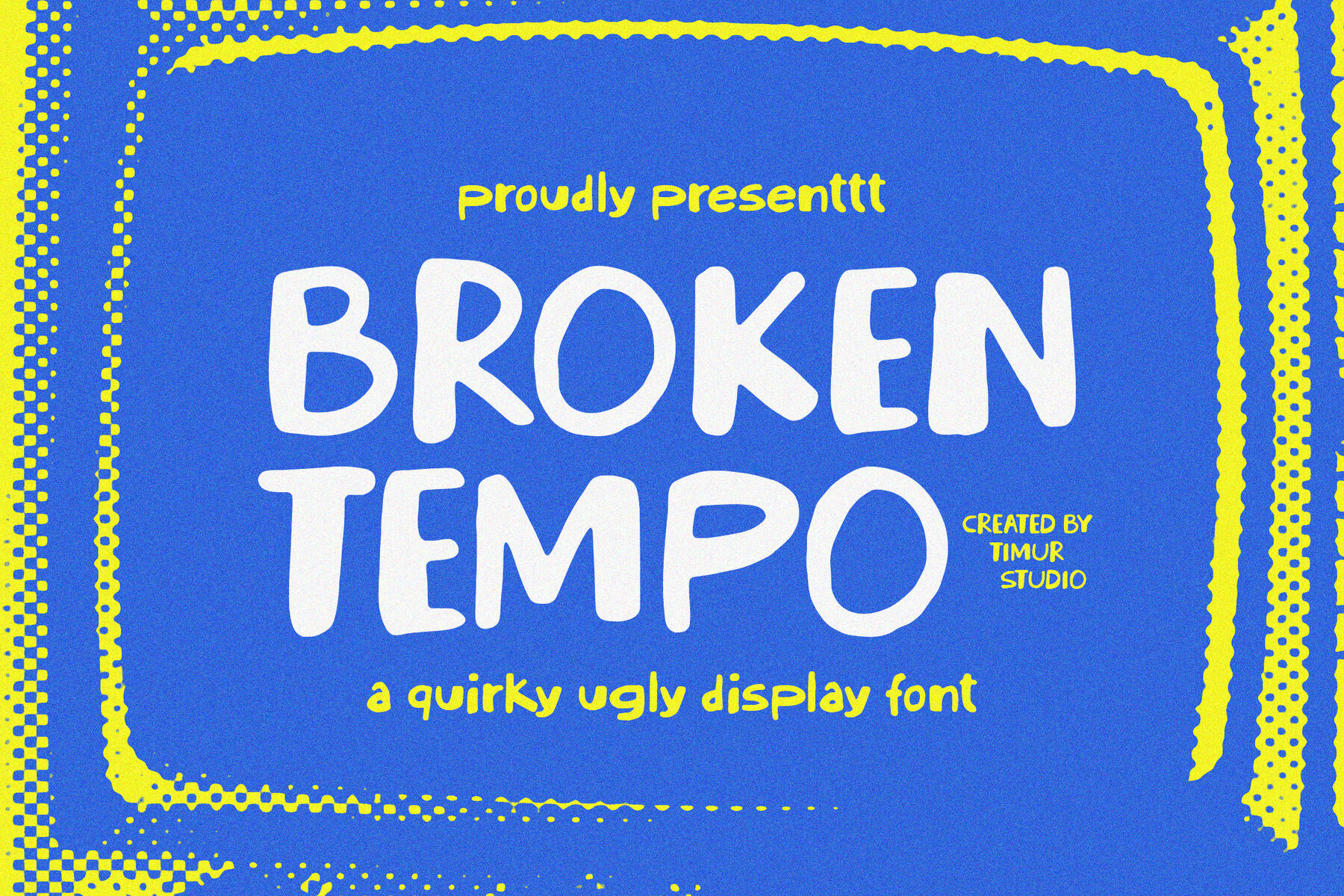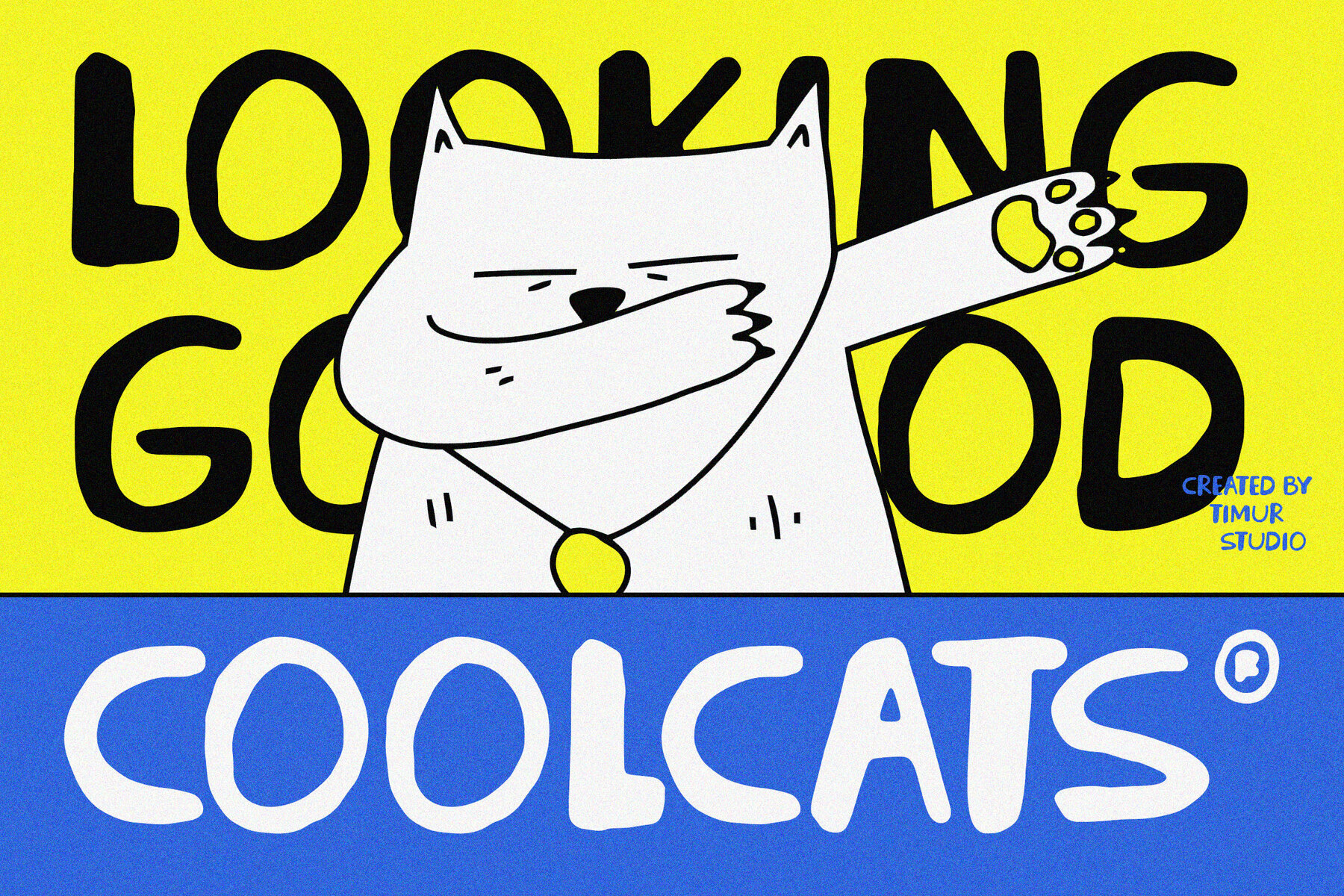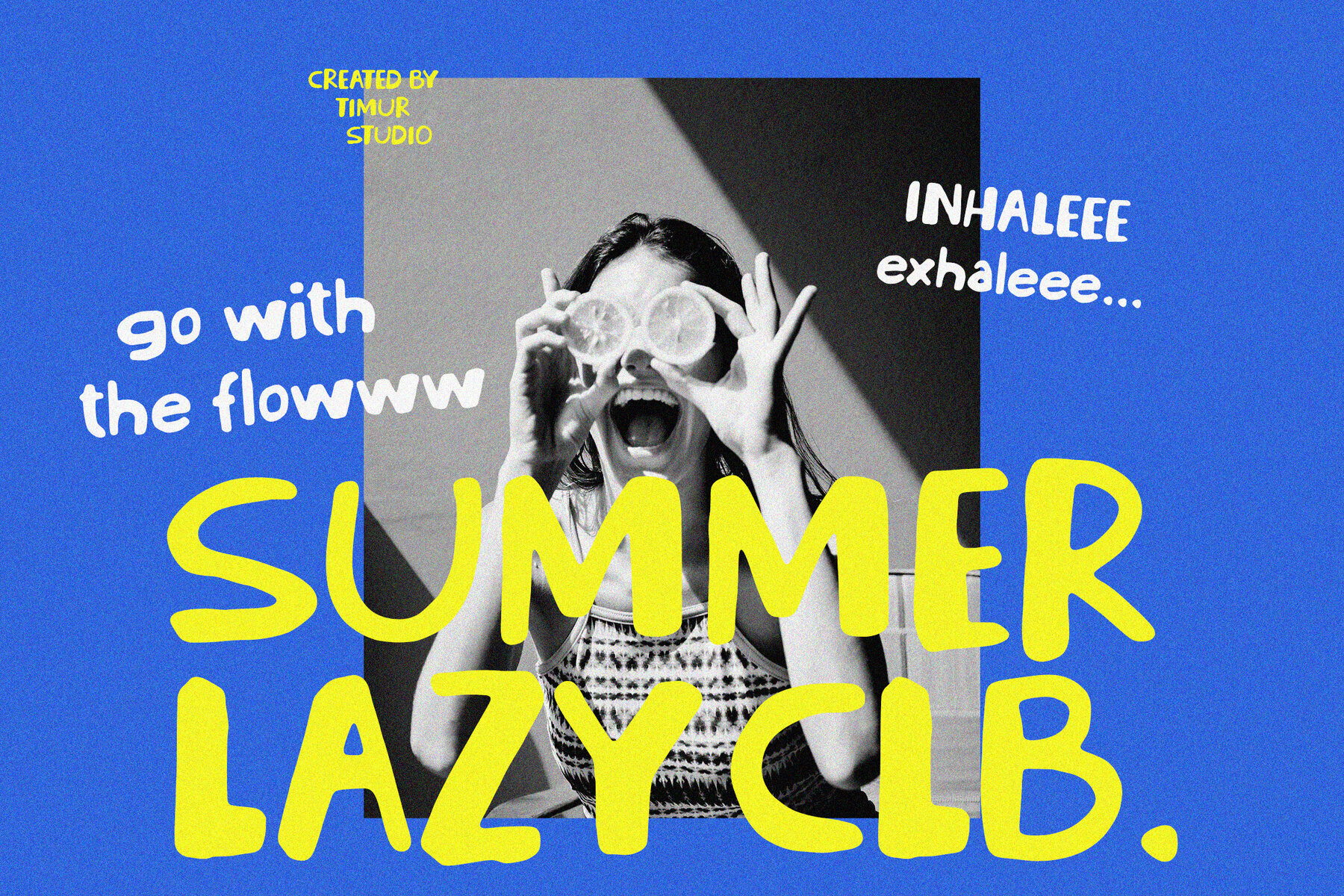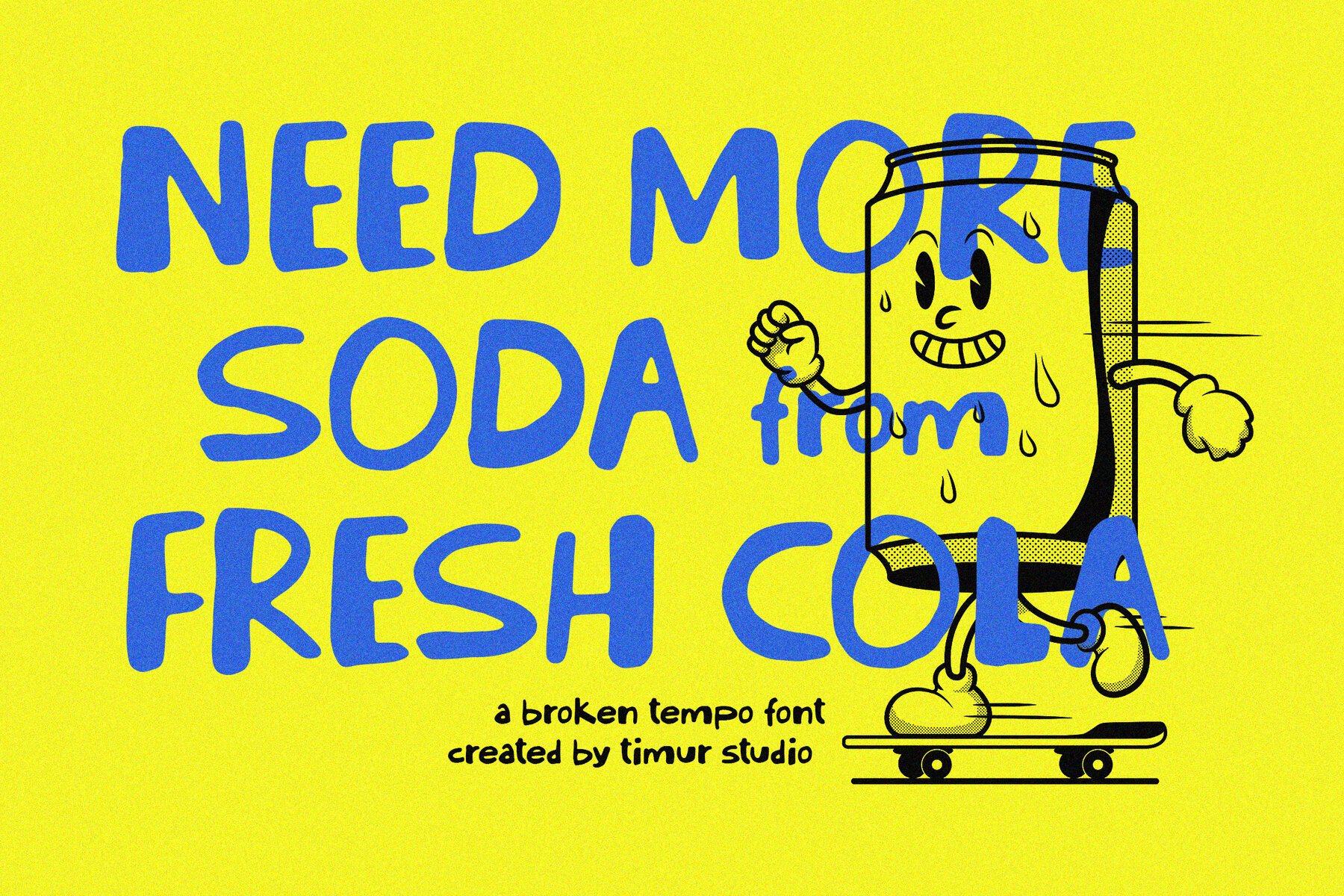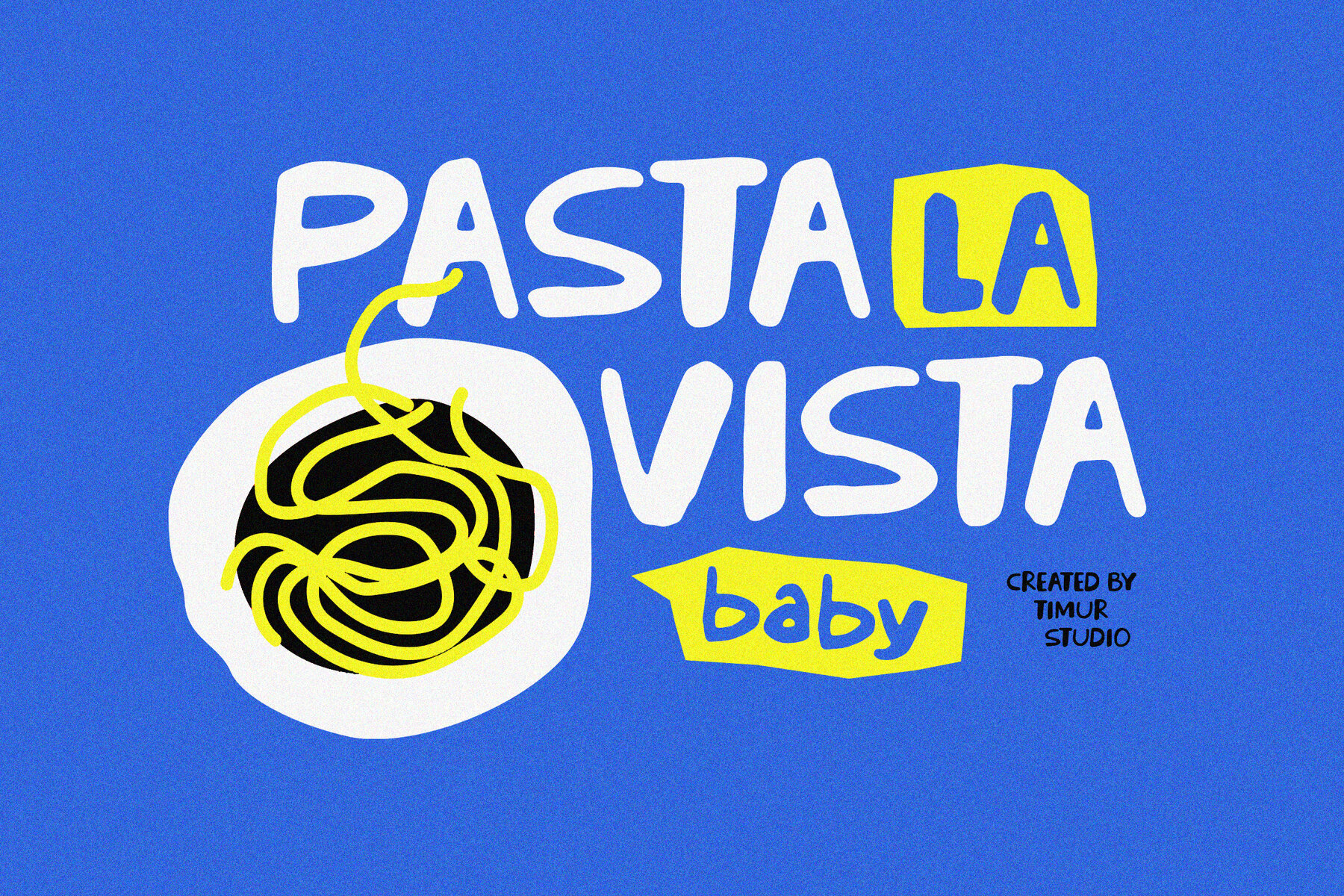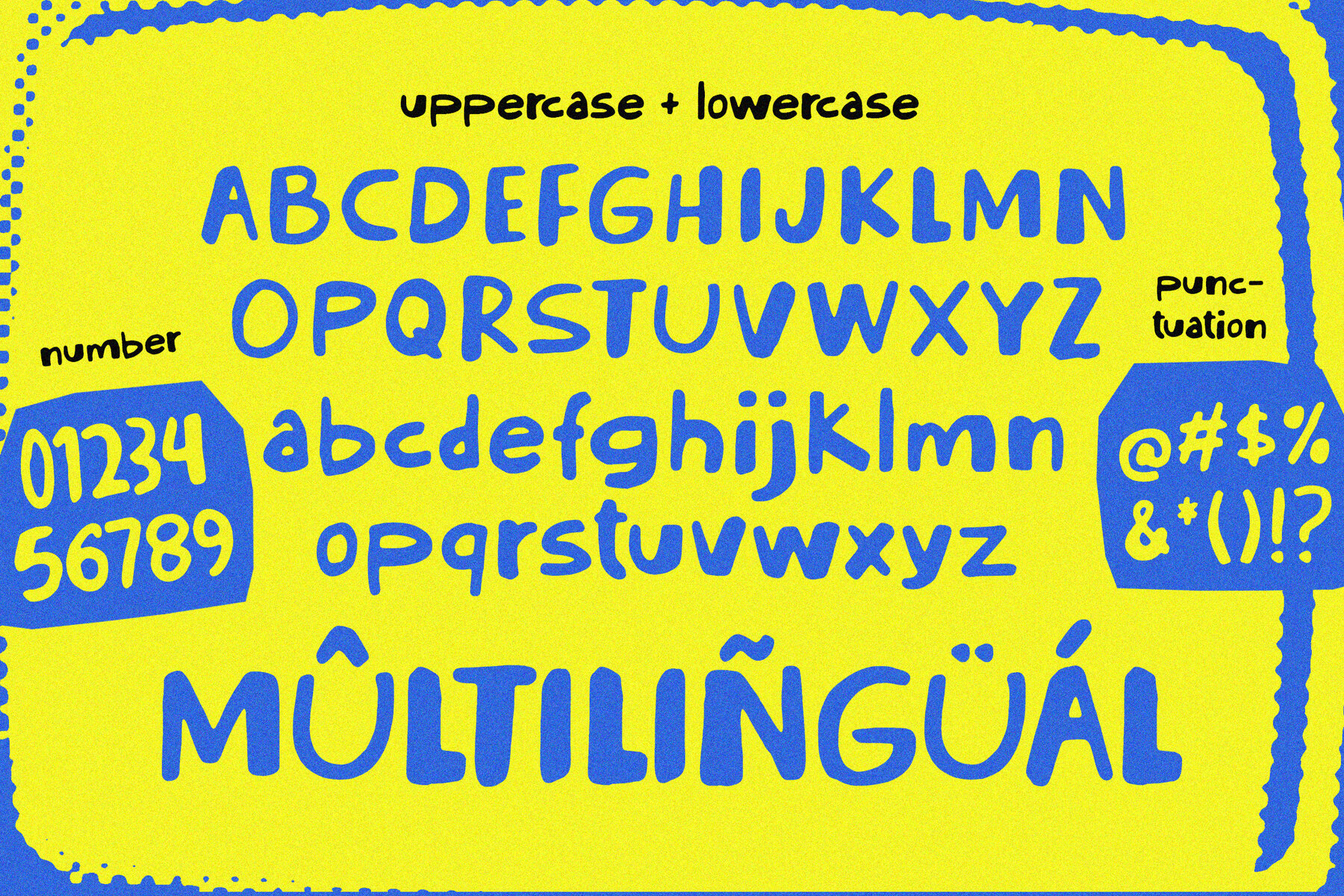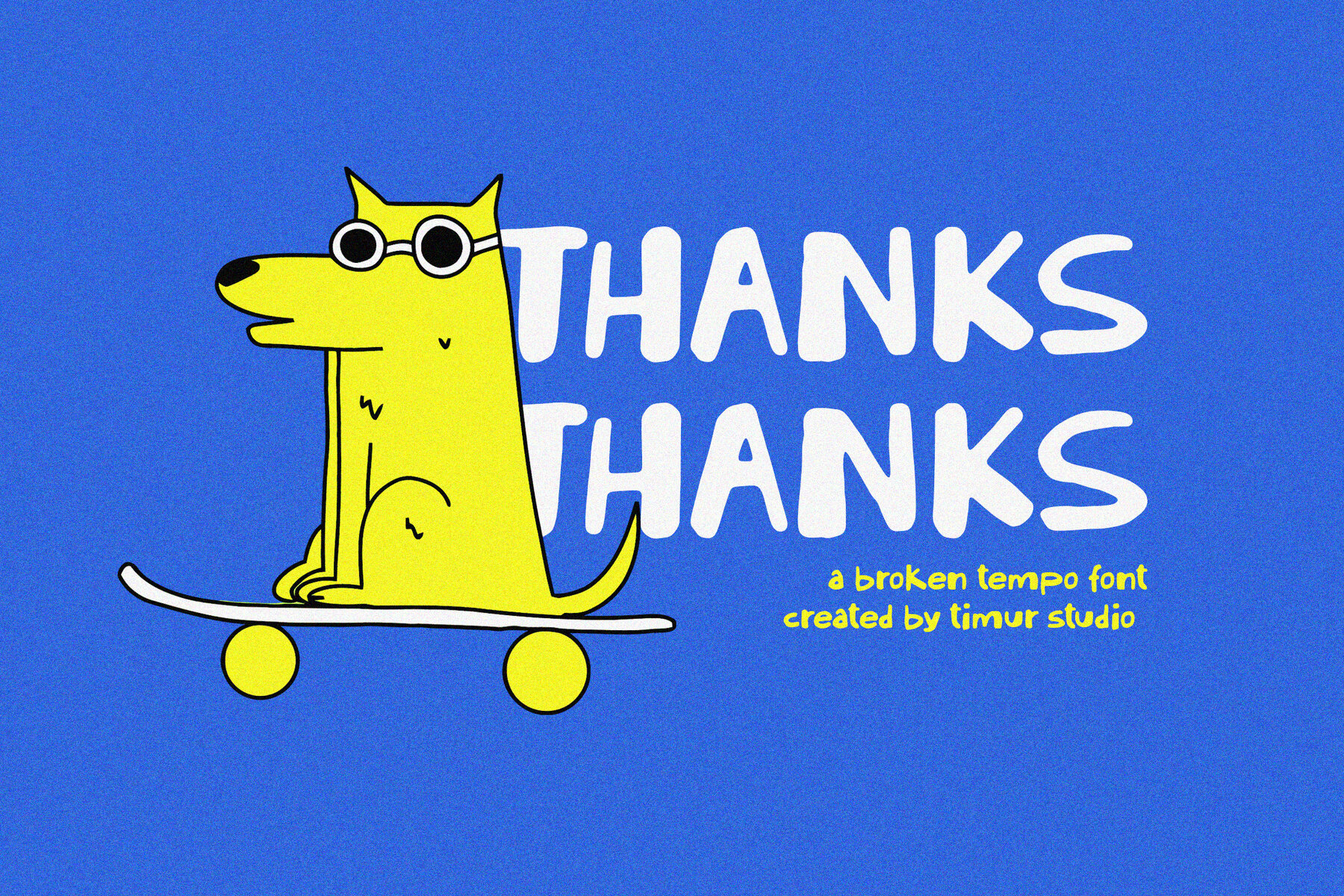
Broken Tempo
Discover the offbeat rhythm of Broken Tempo, a uniquely hand-drawn display font. Inspired by vintage player-piano rolls, this font infuses your designs with playful irregularities and nostalgic charm. Whether you're designing posters, album covers, or projects that demand a retro touch, Broken Tempo is your go-to choice.Broken Tempo: Quirky Display Font with Vintage Charm